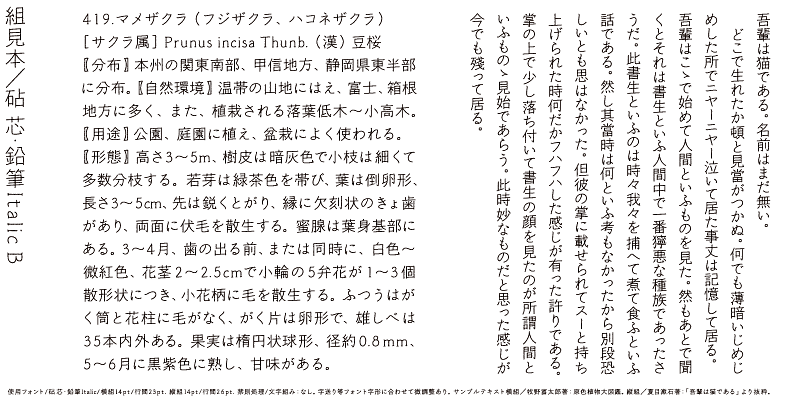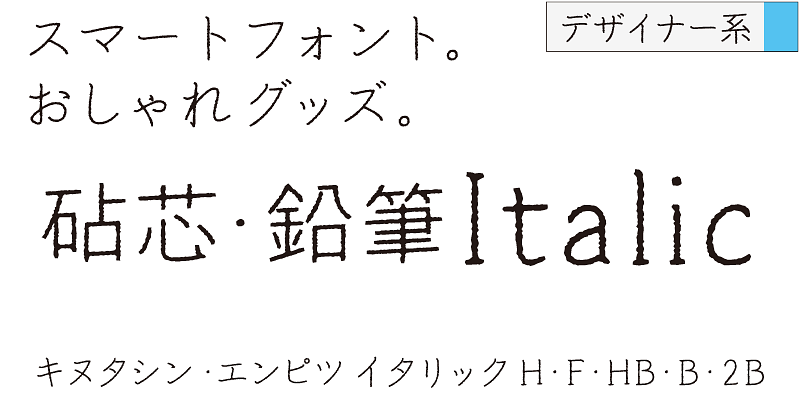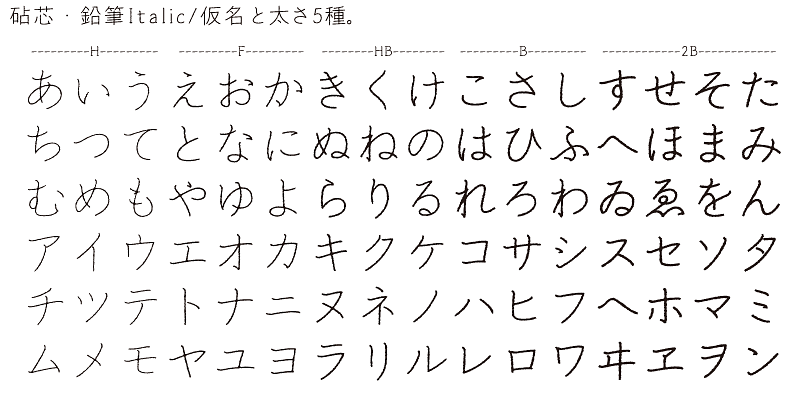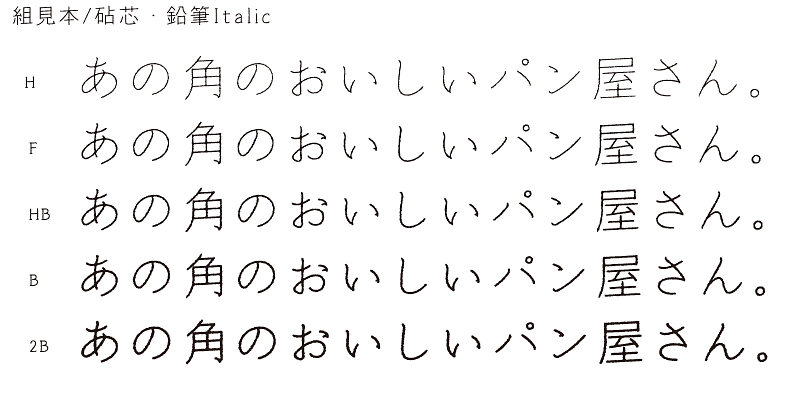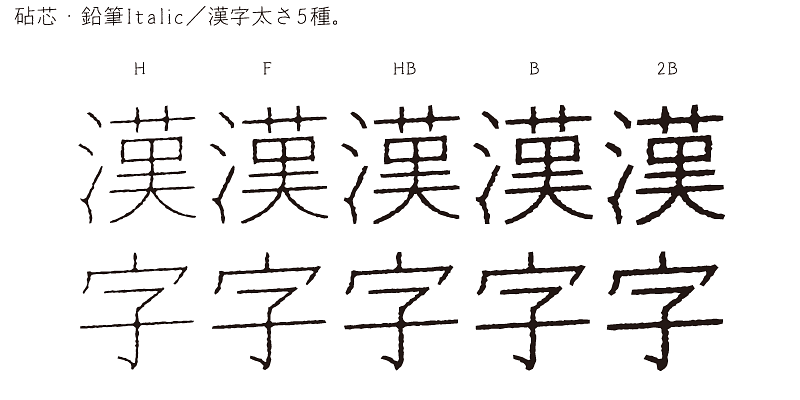
From this typeface, you may feel nostalgia for pencils that have gone out of use. The character shapes inherited from Kinuta Shin are readable with an authodox writing style. Strokes with a blurring effect give this typeface warmth and familiarity. Setting text loosely in this typeface with wider letter spaces allows you to help the reader feeling hygge from the text.
There are five weights named after the variations of pencil hardness: H, F, HB, B and 2B. In addition to the italic version, there is an upright version: Kinuta Shin Enpitsu.
One characteristic of the Japanese language is that it has kana syllabic characters. Kana characters were invented in Japan to represent sounds in Japanese and translate texts imported from China into Japanese. Kana characters are needed to create Japanese words and expressions from kanji/Chinese ideographic characters. While there may be ambiguities, these words and expressions exhibit the warmth and gentleness of the lives of people living in the small and densely populated land of Japan.
Kinuta Font Factory’s believes that kana characters are the origin of written words in Japanese, and we think that improving kana characters will make Japanese text more attractive. On average, 60% of Japanese text consists of kana characters – changing the shape of these characters changes the visual appearance of the text. The possibilities for typographic expression using simple, dynamic and curvilinear kana characters are vast, and the richness of Japanese text depends on kana characters. This is the reason why Kinuta Font Factory offers many variations of kana typefaces.